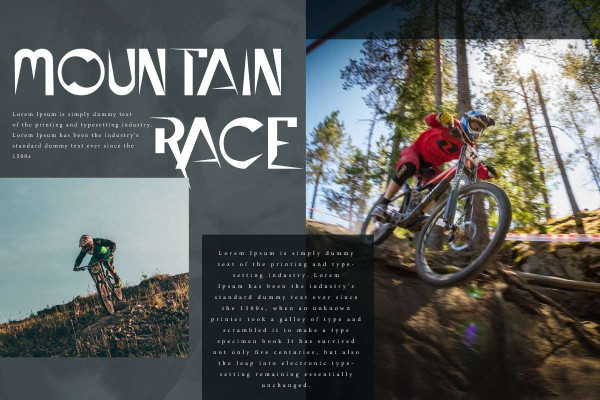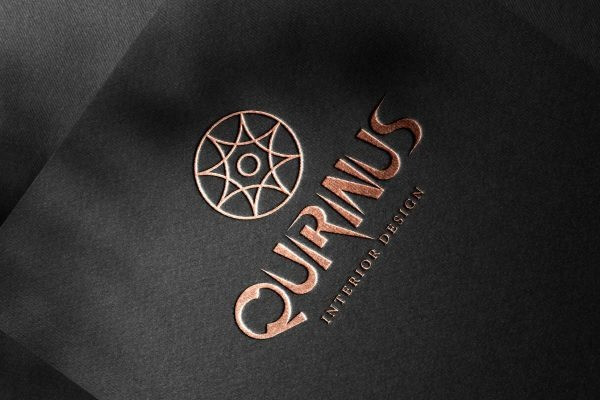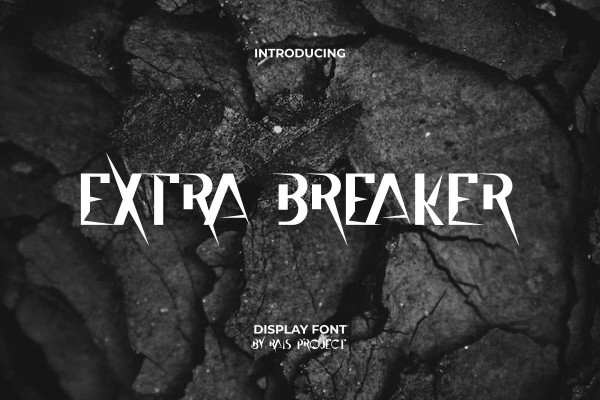
Extra Breaker Font
Extra Breaker Font is an action sports display font with strong and unique styles, that which will make your designs attractive! Such as brand logo, business card, cover, custom design, invitation, label, menu, poster, product packaging, quote, signage, website, etc.
Extra Breaker Font includes a full set of ALL CAPS for both Uppercase and Lowercase Basic Characters, Numerals, and large range of punctuation. This modern art style font will be suitable for various industries, such as accessories, café, event organizer, fashion, festival, interior design, movie, music, photography, printing, publishing, etc.